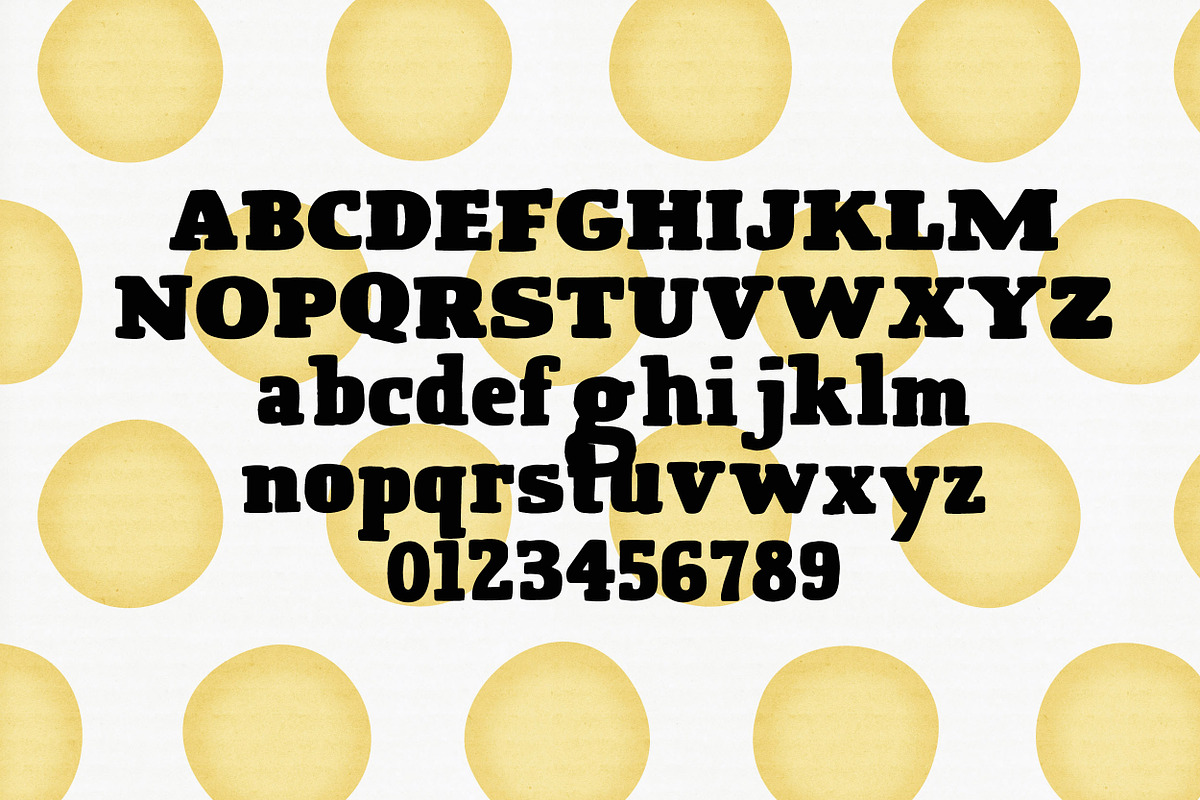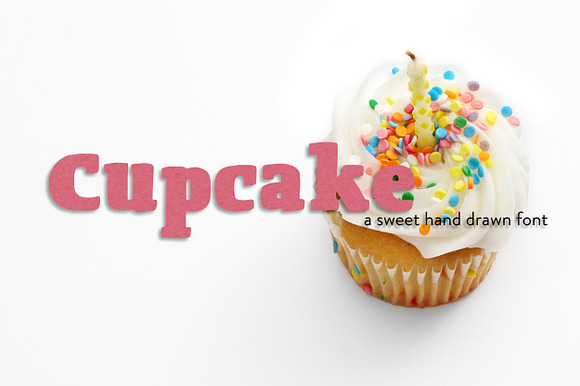
Cupcake Hand Drawn Font
A hand drawn open type mini desktop font. Includes upper and lowercase letters and numbers. No punctuation or other characters included.
- Includes upper and lowercase letters and numbers.
- No punctuation or other characters included.